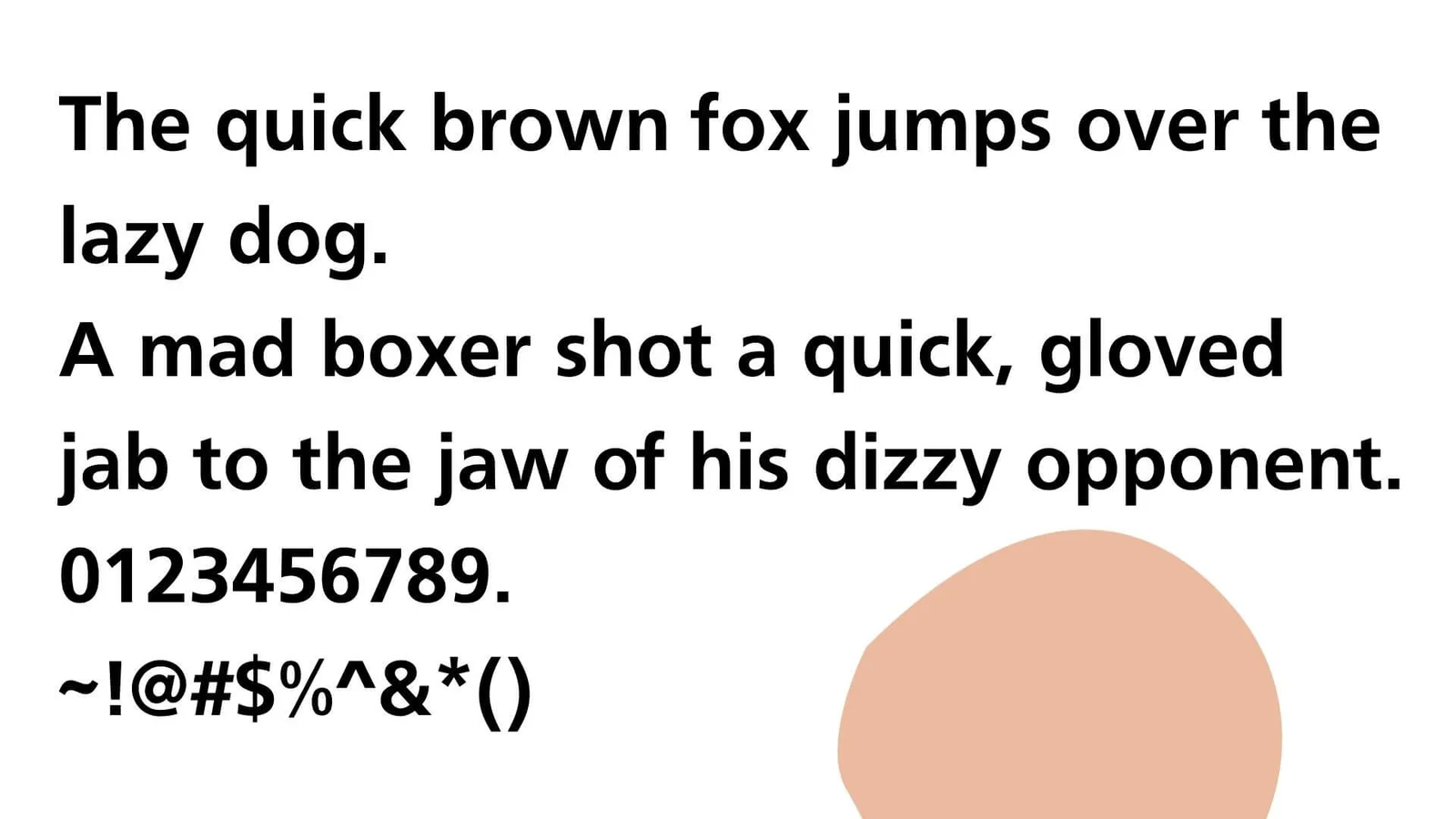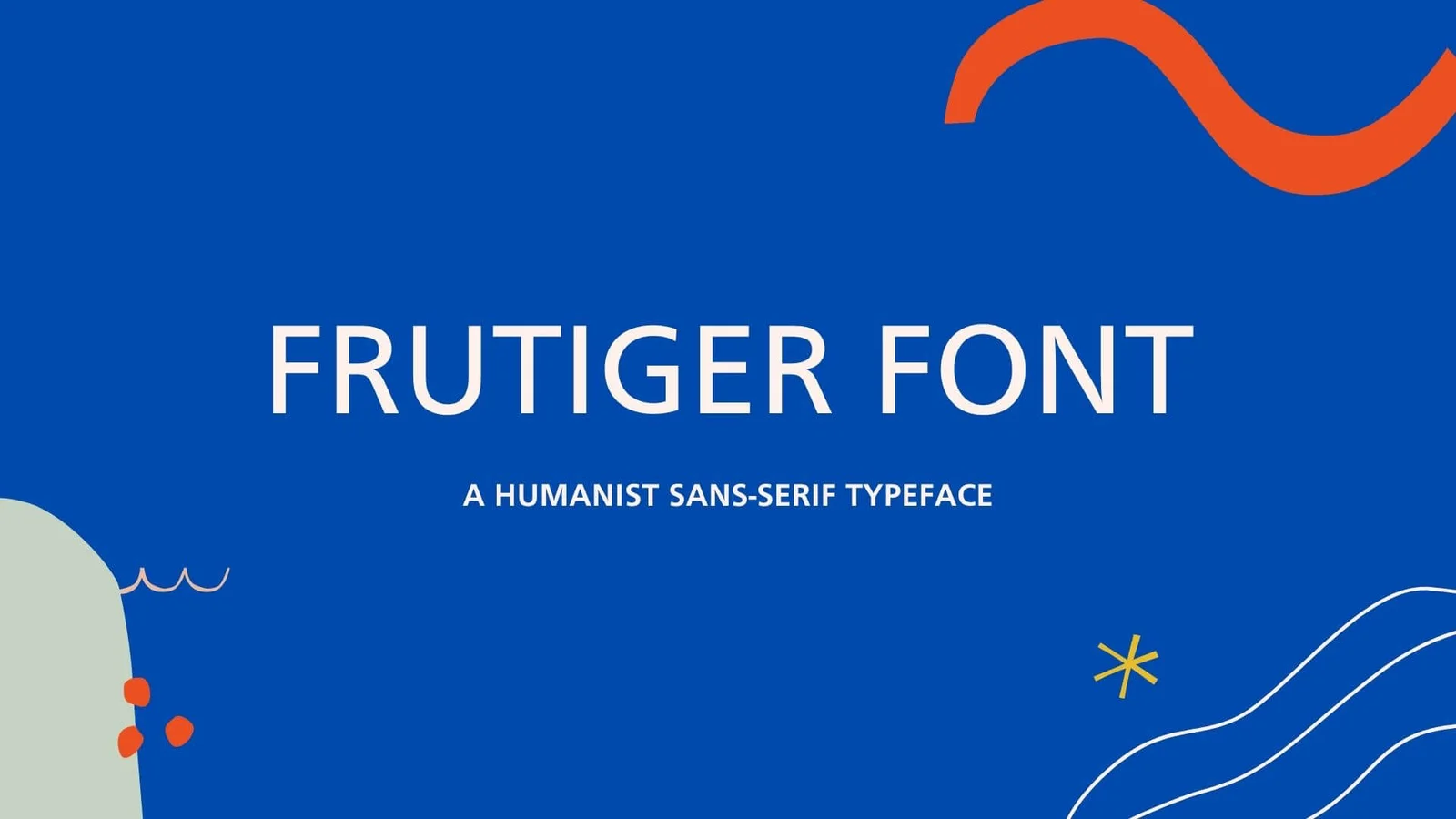
About Frutiger Font
Humanist sans-serif designed for signage
Font Features
- High-quality sans-serif design
- Perfect for humanist applications
- Excellent character coverage
- Versatile and professional